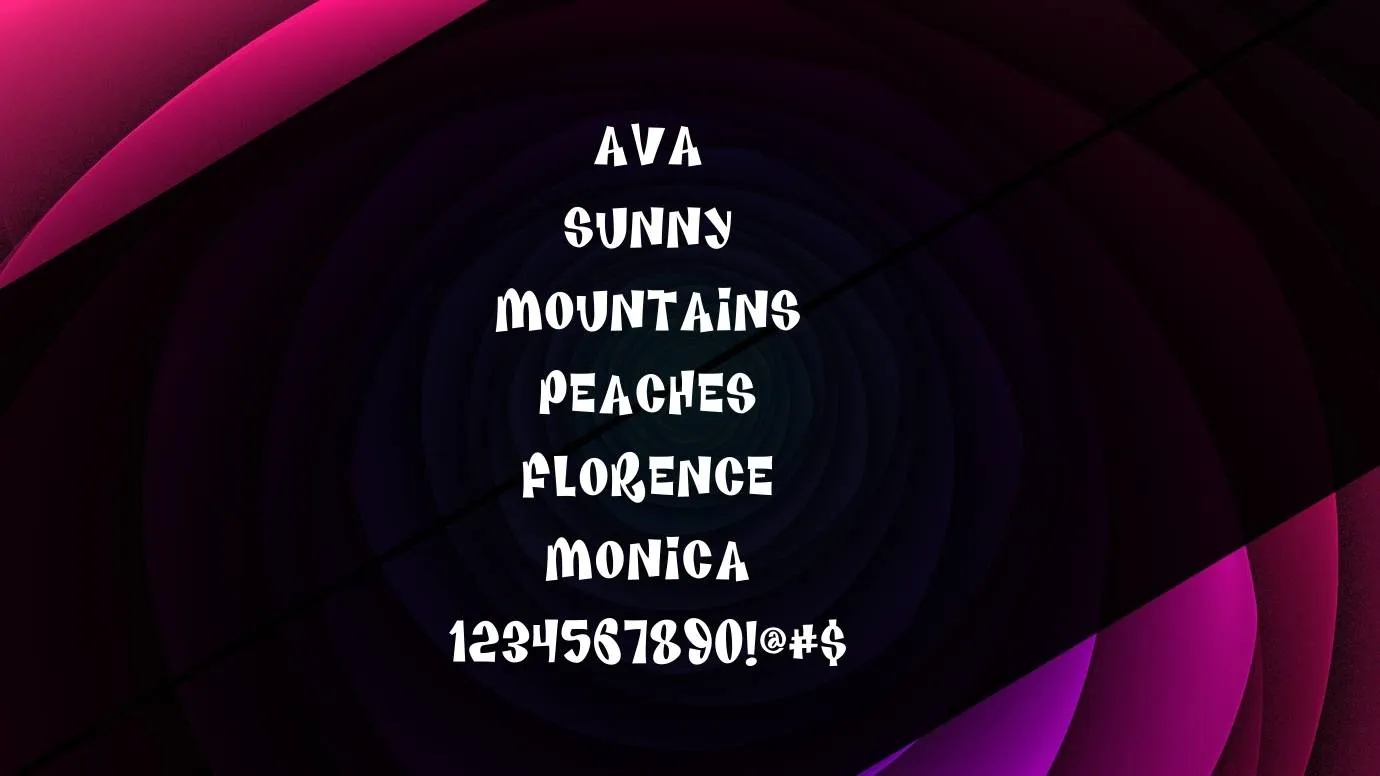
Bratz Font is a comic font created by a UK-based typeface designer. It is used for the Bratz line of products. The font is available in two weights, Regular and Bold. The Bratz typeface family includes four fonts: Bratz Sans, Bratz Script, Bratz Deco, and Bratz Bold.
The bratz typeface is a great choice for any project that needs a playful, youthful feel. It’s perfect for products aimed at kids or tweens. And thanks to its four different styles, it can be used for a wide variety of applications.
You can use this typeface with the power font to create interesting and unique text styles and designs. You can use this typeface in the printing of invitation cards, magazine covers, book titles, product packaging, fashion designs, posters, banners, and many more.
Creator of Bratz Font
This comic and stylish typeface is created by a UK-based typeface designer Leigh Taylor for the foundry Flava Fonts in 1999.
This font style is designed with a unique and consistent style. This single attractive style is a mixture of various characteristics, containing upper- and lower-case letters, numbers, punctuations, symbols, special characters, glyphs, and multiple language support.
| Style | Comic |
| Designer | Leigh Taylor |
| Foundry | Flava Fonts |
No, it is not a web-safe typeface. You just use this typeface in the heading or titles, you can not use this typeface in the body text.
Yes, you can use this typeface in the logos. You can also use this typeface in the posters, banners, and brochures.